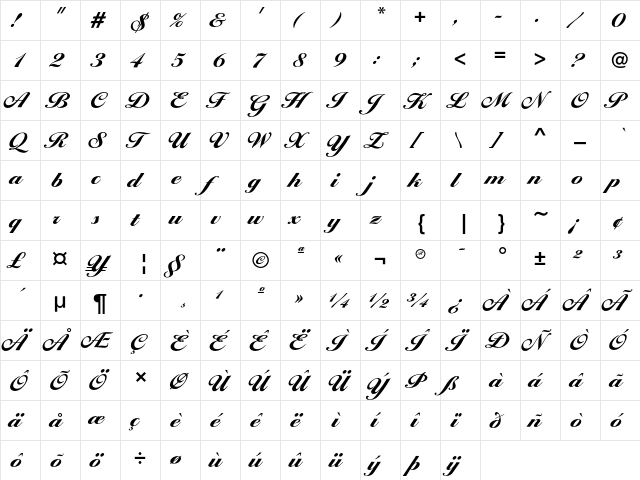
BallantinesScriptEF ExtraBold Font Preview
Design Context for BallantinesScriptEF Typeface
BallantinesScriptEF brings a calligraphic fluidity to the page — its connecting strokes and expressive curves give it an unmistakably human quality. The heavy weight commands attention and anchors typographic hierarchies.
Font Pairing: Combine BallantinesScriptEF with a simple geometric sans for maximum contrast — the tension between flowing curves and clean structure is a classic typographic pairing.
Pro Tip: Pair BallantinesScriptEF with a clean sans-serif for supporting text. The contrast between fluid script and geometric structure creates an elegant typographic hierarchy.